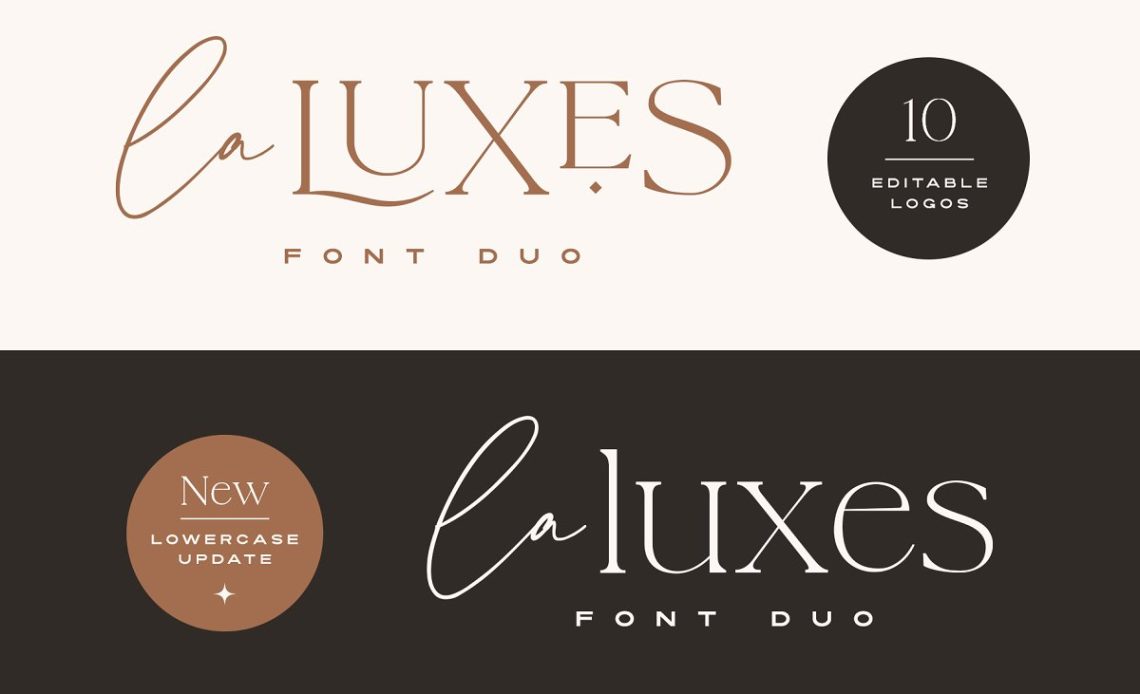
Looking for a typography pairing that screams luxury and elegance? Look no further than La Luxes Font Duo + Logos (Updated!) by Sam Parrett. This font duo consists of an elegant Script font and a stylish Serif font, both containing a range of special characters and ligatures to add a custom-made feel to your designs.
Not only that, but this product also includes 10 bonus logo templates, allowing you to easily edit and customize the designs you see in the images above and create stunning logos in minutes. These logos are fully vector and can be scaled to any size without quality loss.
The La Luxes Script font is a clean and elegant hand-drawn font with upper and lowercase characters, all punctuation and numerals. With 30 ligatures included, the text flows naturally and feels truly unique.
The La Luxes Serif font is a modern all-caps font that contains uppercase and new lowercase characters, all punctuation and numerals. With 38 ligatures and 11 special characters, this font gives you a variety of layout options to choose from.
In short, La Luxes Font Duo + Logos (Updated!) is the perfect choice for anyone looking to elevate their designs and create something truly eye-catching. Download it today and indulge yourself in the luxurious world of typography.